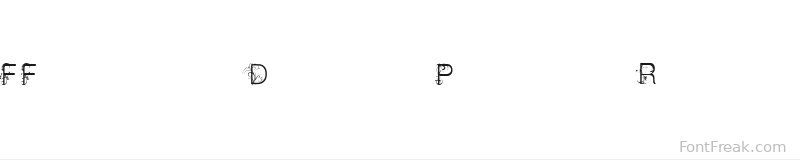
DragonisComing
DragonisComing by Maelle.K is a stunning display font that captures the essence of elegance and whimsy through its unique design. This decorative typeface features a blend of flowing curves and sharp angles, creating a striking visual contrast that is both eye-catching and memorable. The stroke weight varies throughout the font, lending a sense of dynamism, while the spacing is thoughtfully balanced to ensure readability without sacrificing style. The graceful flourishes and artistic swirls are reminiscent of fantasy themes, making it particularly enchanting for various creative projects.
Ideal use cases for the DragonisComing font include wedding invitations, where its romantic flair can beautifully set the tone for the celebration. It also works wonderfully for movie posters, especially in the fantasy genre, where its dramatic appearance can draw attention and intrigue. Restaurant menus can benefit from this font, adding a touch of sophistication and uniqueness to the dining experience. Additionally, it can be employed in promotional materials for fantasy-themed events or products, appealing to niche markets.
The target audience for this font encompasses graphic designers, small business owners, and content creators who are looking to add a distinctive touch to their work. Whether you are crafting an enchanting visual story or seeking to elevate your brand's image, DragonisComing offers a versatile solution.